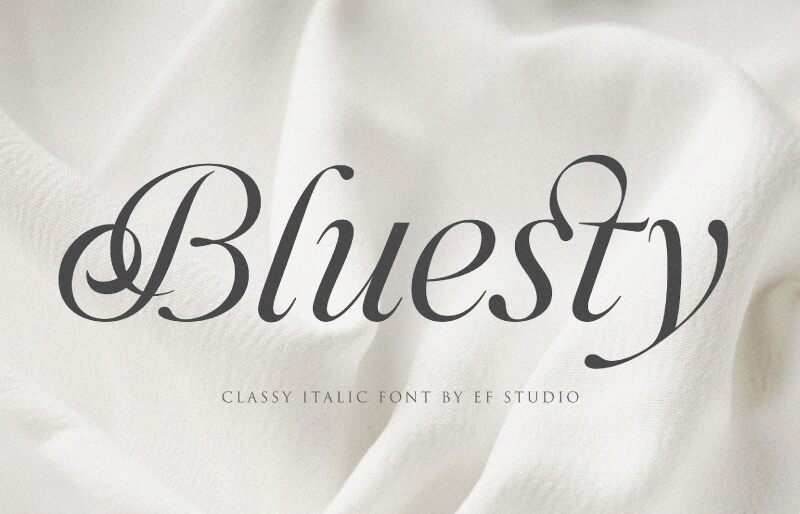
Bluesty font by Ef Studio is a classic calligraphy script font with fluent curves and elegant presence. Its sophisticated appearance marks it as a solid addition to various visual projects that require mainly text usage to get the message across. Summon fancy almost royal vibes with this truly beautiful typeface.
A free calligraphy font, Bluesty is suitable for branding, packaging, stationery designs, advertising campaigns, greeting cards, posters and various other print materials. It should add extra elegance to web designs as well such as social media posts and user interface design work which you can share online.
Features: Ligatures & Alternates